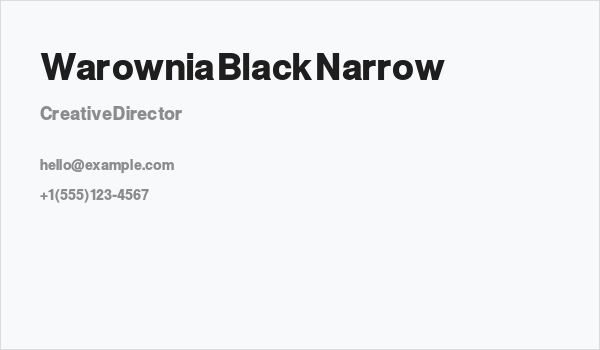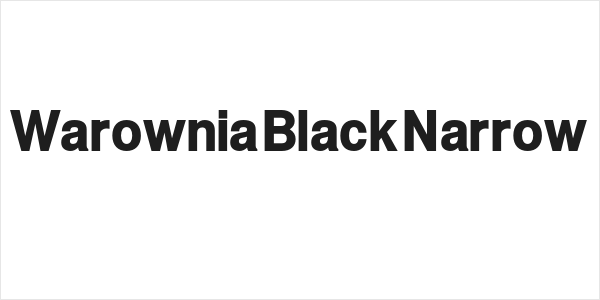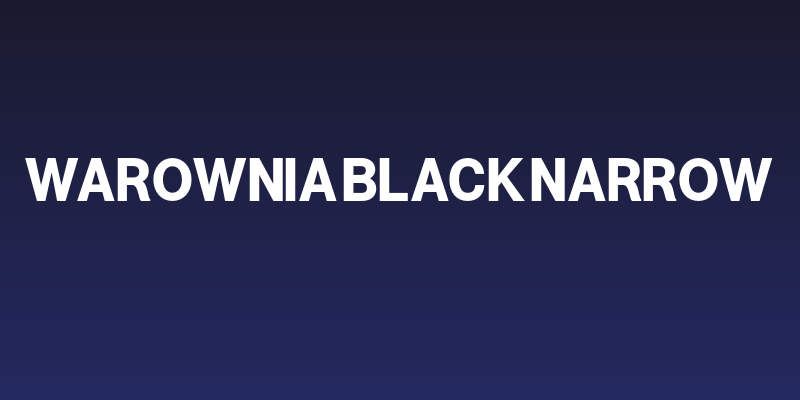
Warownia Black Narrow Font
Warownia Black Narrow Description
This typeface features a bold and commanding presence with its thick, uniform strokes and narrow letterforms. The uppercase and lowercase characters maintain a consistent weight, providing a strong visual impact. The numerals are equally bold, ensuring clarity and readability. Special characters are designed with the same robust style, making them stand out. The overall design is modern and clean, suitable for making statements in headlines or logos. The narrow width allows for efficient use of space while maintaining legibility.
| Proposed Projects | Ideal for branding, advertising, headlines, and any project requiring a bold statement. |